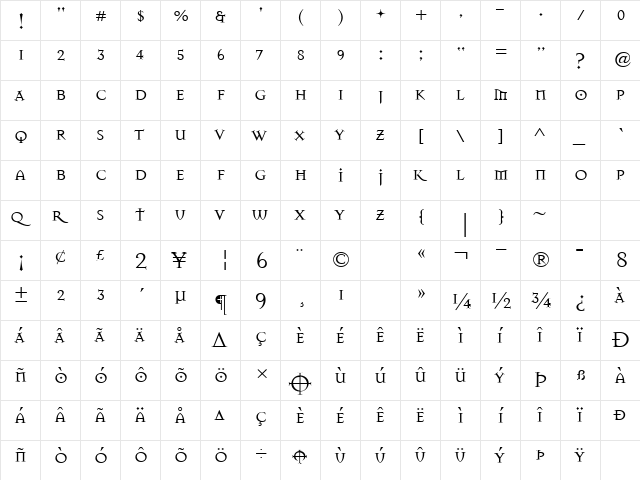
MasonSerifSuper
Design Context for MasonSerifSuper Typeface
MasonSerifSuper carries the refined structure of traditional serif typography, with bracketed terminals and considered proportions that communicate credibility and craft.
Pro Tip: Use MasonSerifSuper for editorial body copy and considered headline work. Pair with a neutral sans for UI elements or captions to create a classic hierarchy.